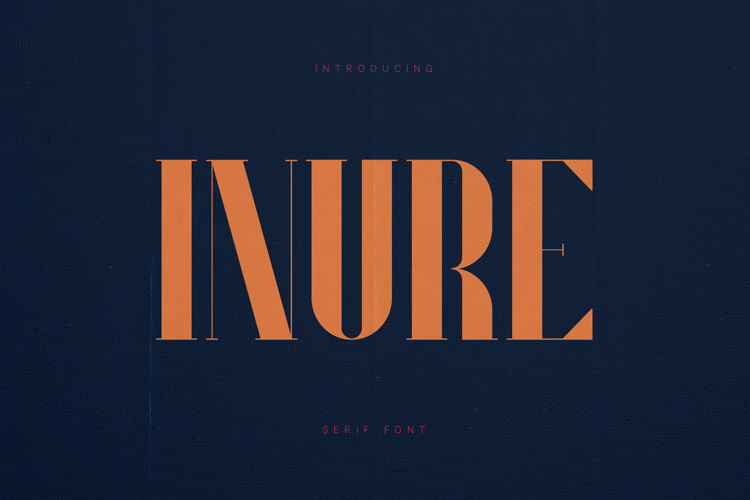
Inure Elegant Modern Serif Font
Inure is a sophisticated serif typeface that blends modern structure with refined decorative details. Its tall proportions, sharp contrast, and subtle ornamental curves give the typeface a distinctive editorial character.
The letterforms are carefully balanced between elegance and personality. Delicate terminals and flowing shapes add a unique rhythm to the typography while preserving clarity and readability. This makes Inure ideal for designers who want a serif font that feels luxurious, expressive, and contemporary.
Inure works beautifully in large headlines, branding projects, editorial layouts, and fashion-inspired designs where typography plays a central visual role.
• Elegant high-contrast serif design
• Decorative terminals and stylish curves